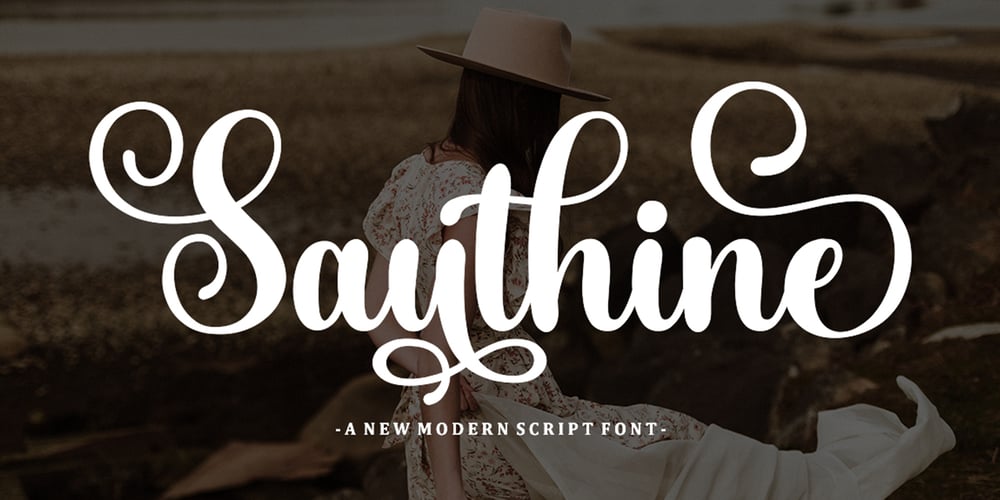
Sauthine Font Family was designed by Mu Fazzal and published by Bosstypestudio. Sauthine contains 3 styles and family package options. Introducing Sauthine with a smooth handwriting style and very pretty and lovely. Sauthine is perfect for branding projects, home appliance design, product packaging, use in business cards, invitation cards, etc. Just like a stylish text overlay to a wallpaper or anything that needs a touch of love.Thanks for checking! I really hope you enjoy it.